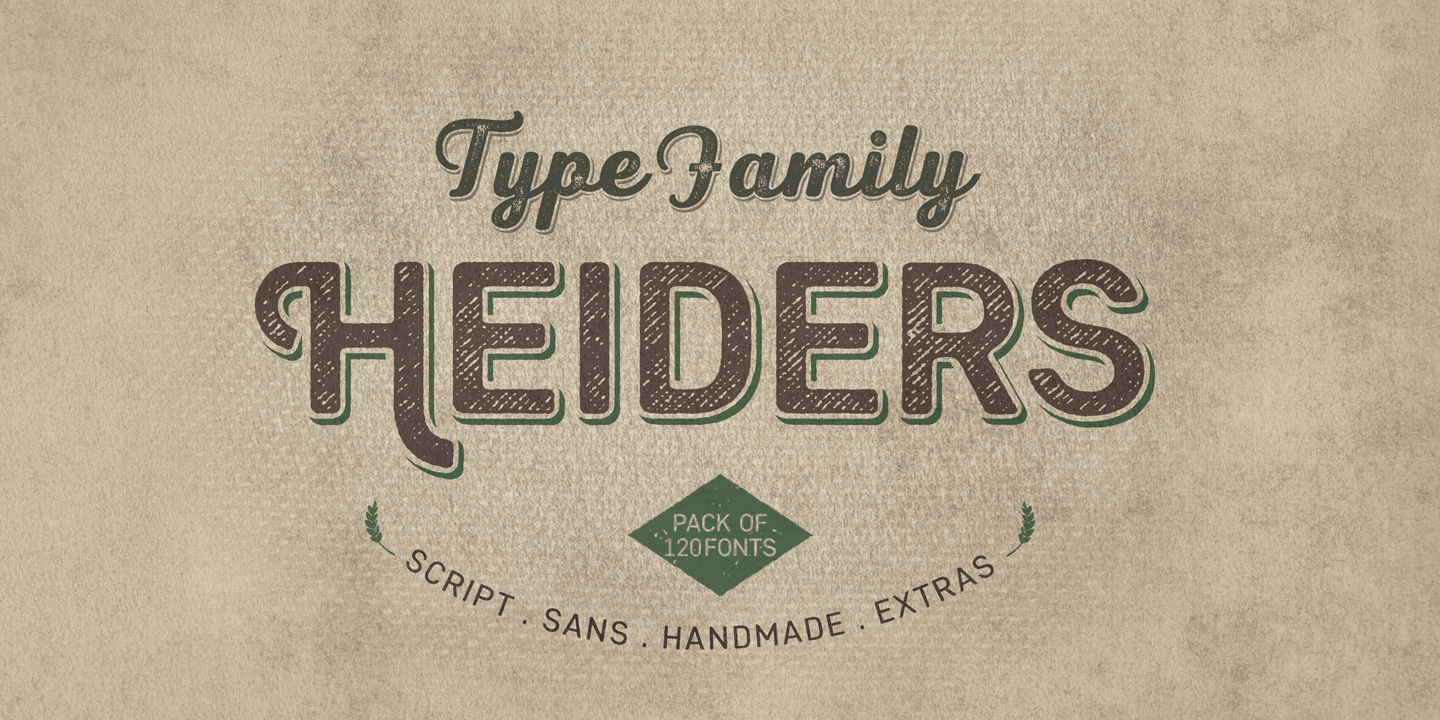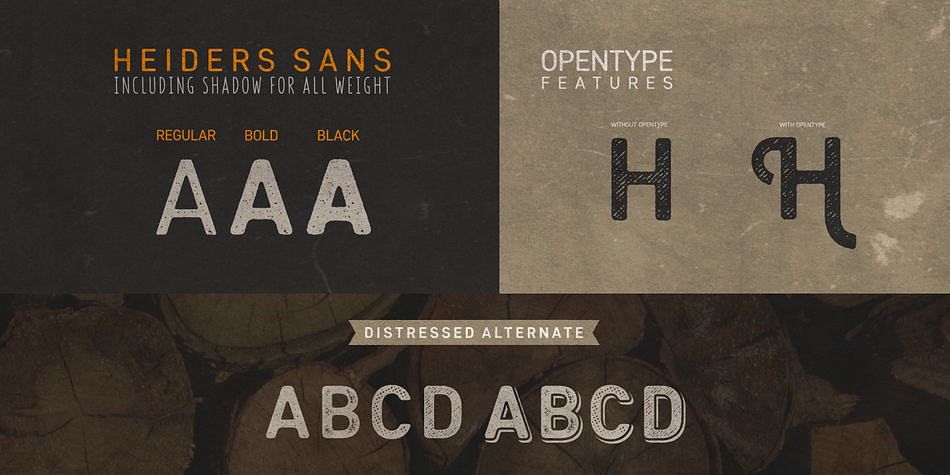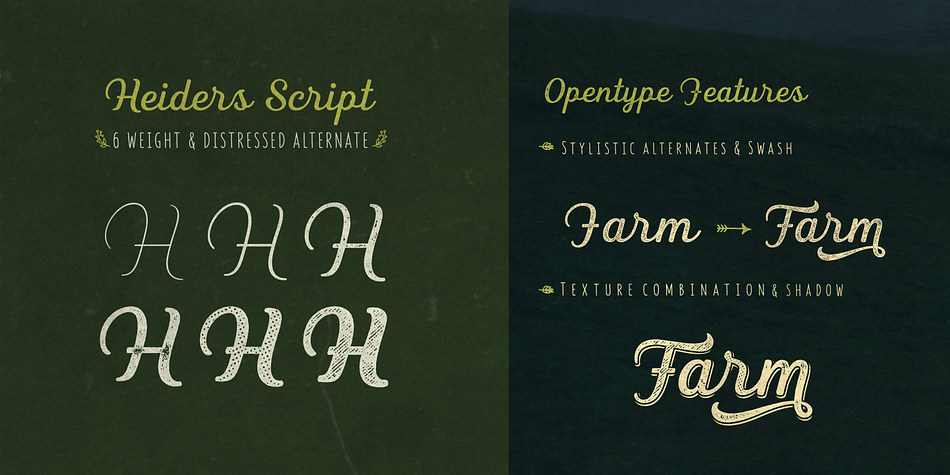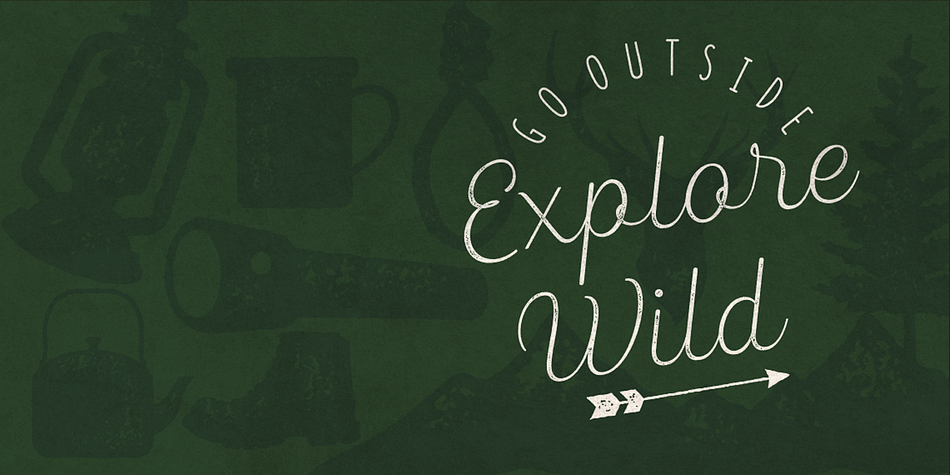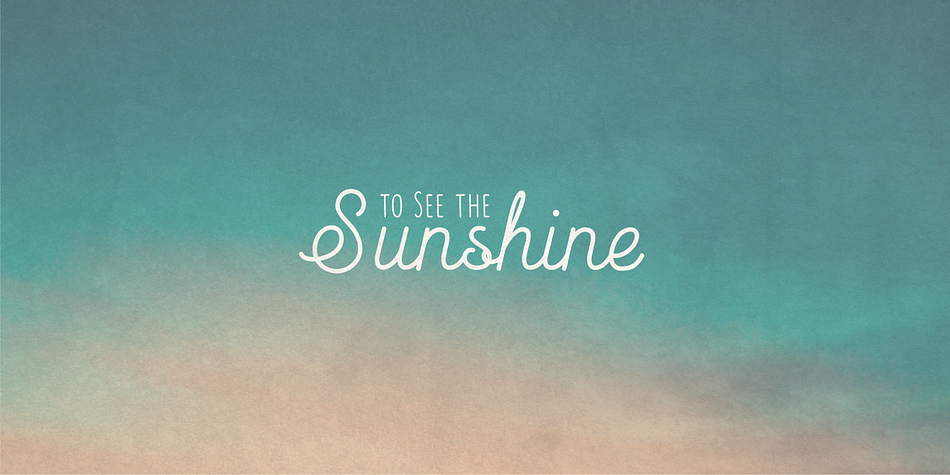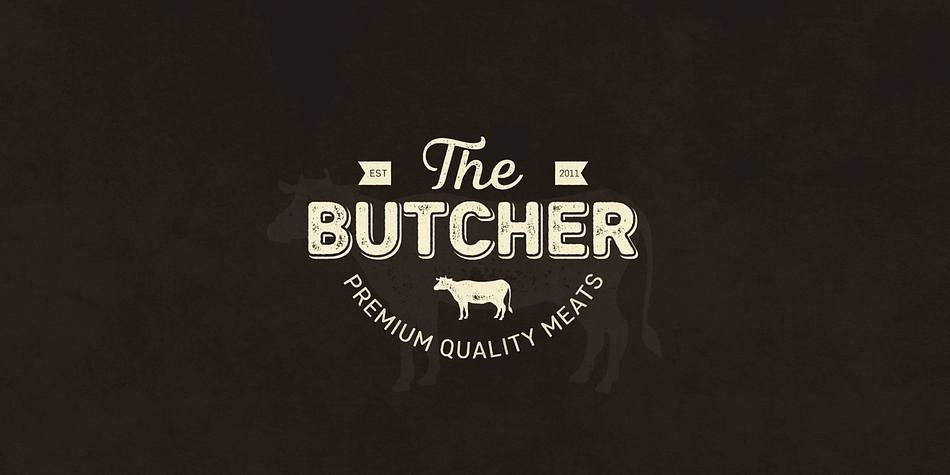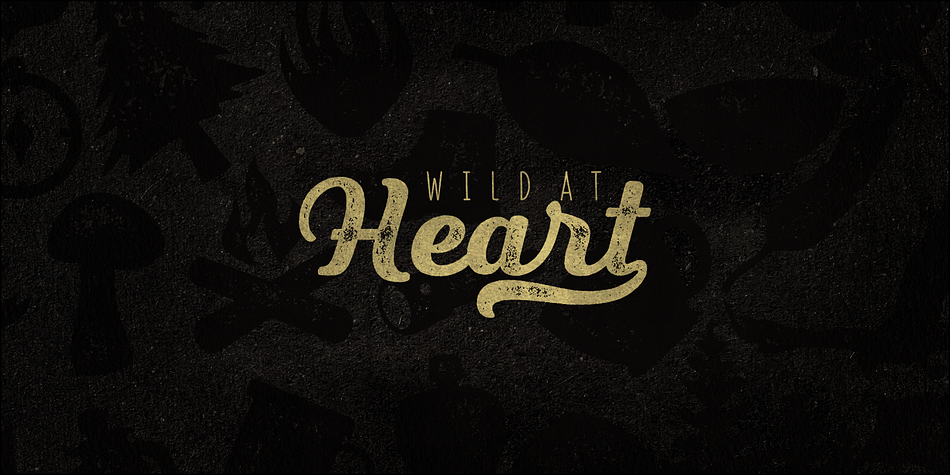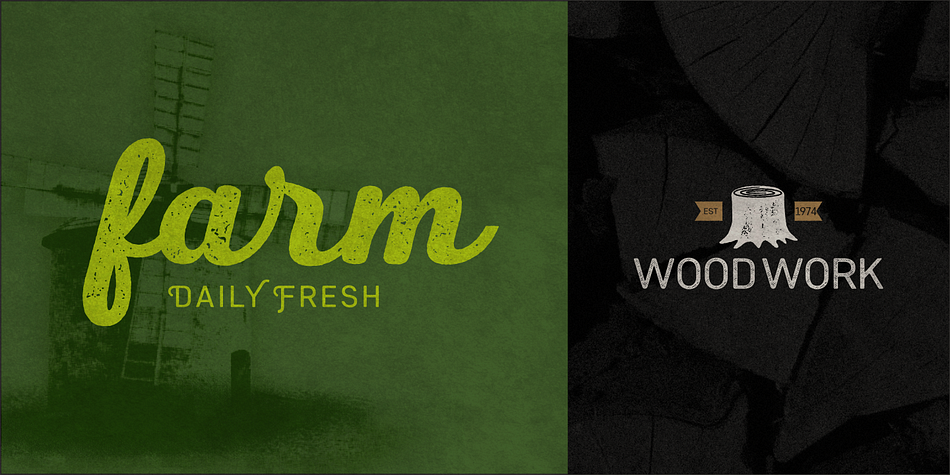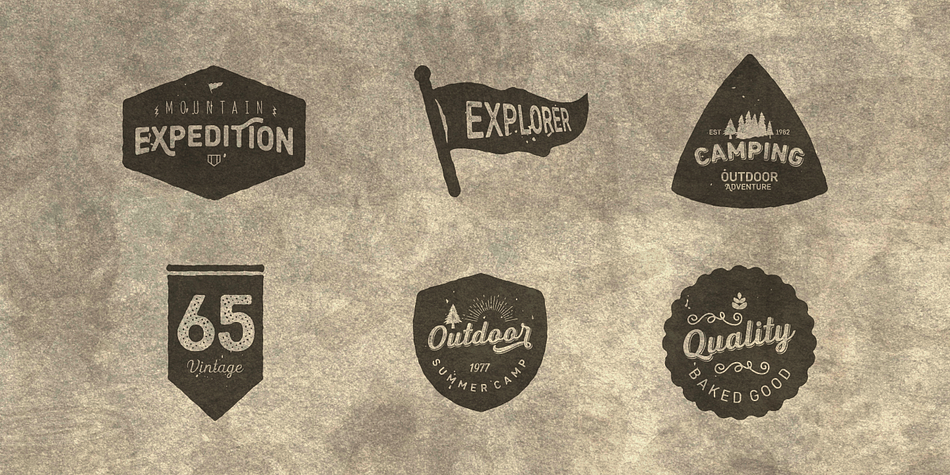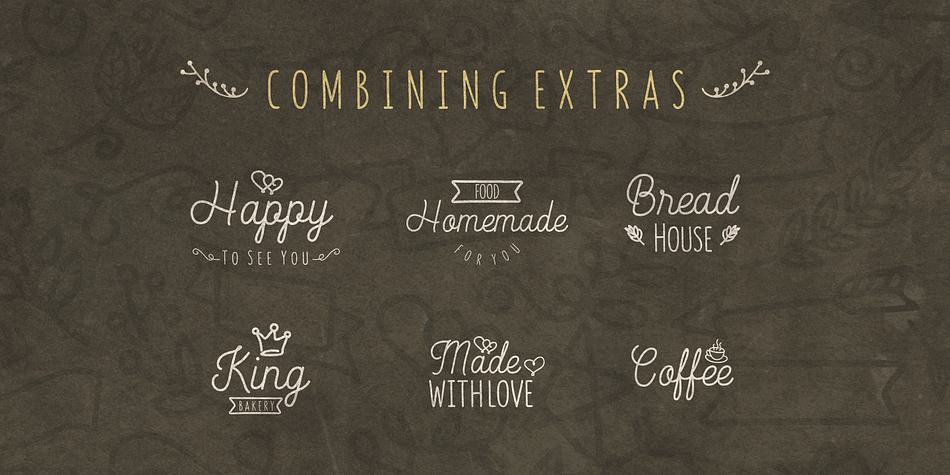
Designed by Cucu Supriyadi, Heiders is a multiple classification font family. This typeface has one hundred and twenty styles and was published by Seventh Imperium.
Heiders is A font family that includes 120 fonts.
The Heiders famliy comprises 4 sub-families: Heiders Script, Heiders Sans, Heiders Handmade and Heiders Extras.
The Script and Sans versions have a Clean and Rough version with 4 distressed alternates
With the included texture options and lots of extras you can create your own look. These fonts make it easy to create projects and will meet various other design needs.